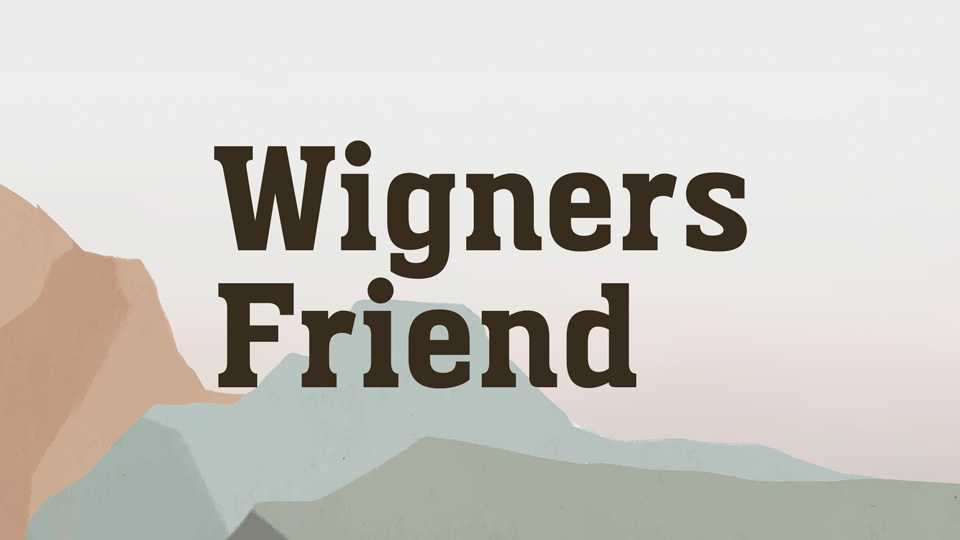
Download Wigners Friend font, a slab serif typeface that was a very quick design, a bit rough and ready. Wigners Friend was built to use in a graphic design project and it proved useful in that role.
Designer: Paul James Miller